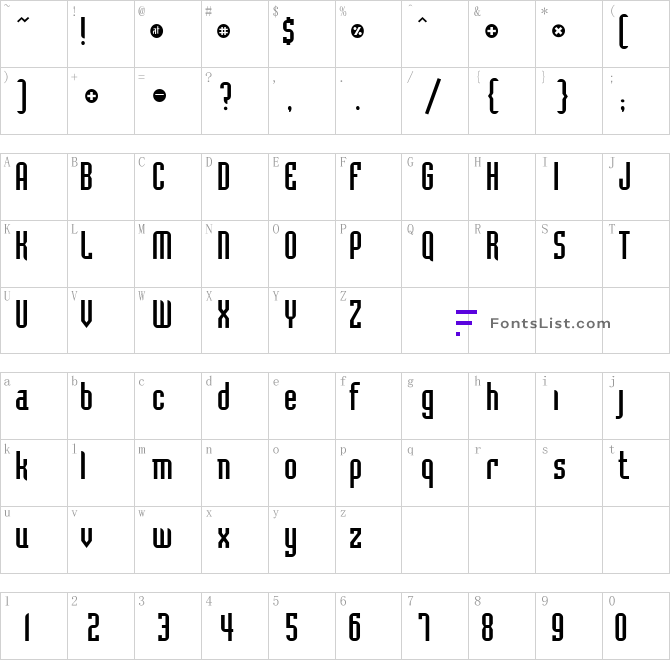
- Font Name:Bedrock
Bedrock.ttf is a very beautiful artistic font, Bedrock.ttf is widely used in the design and printing of various books and pictures,Bedrock.ttf has a strong visual impact,Bedrock.ttf is a commonly used font in newspapers, magazines and books, and is used in posters, e-commerce Poster design, store design, logo design, font design and other fields.Bedrock.